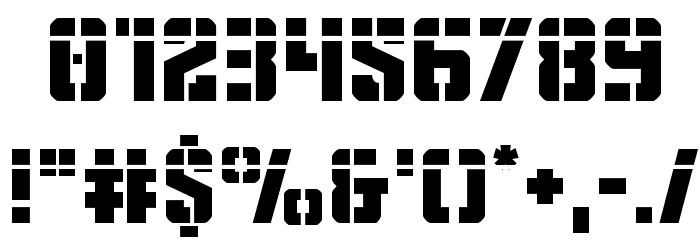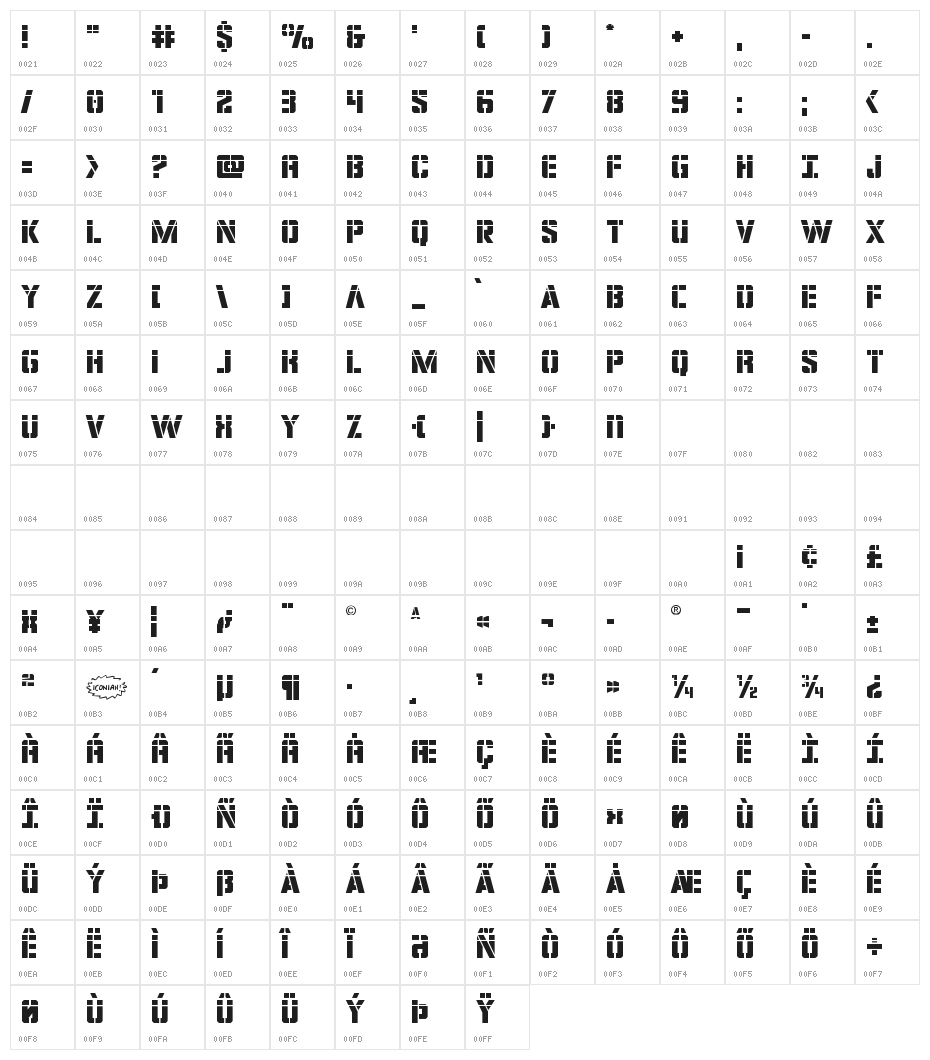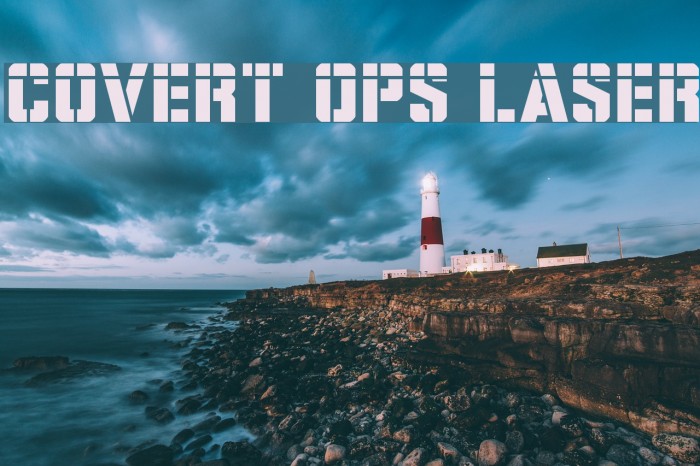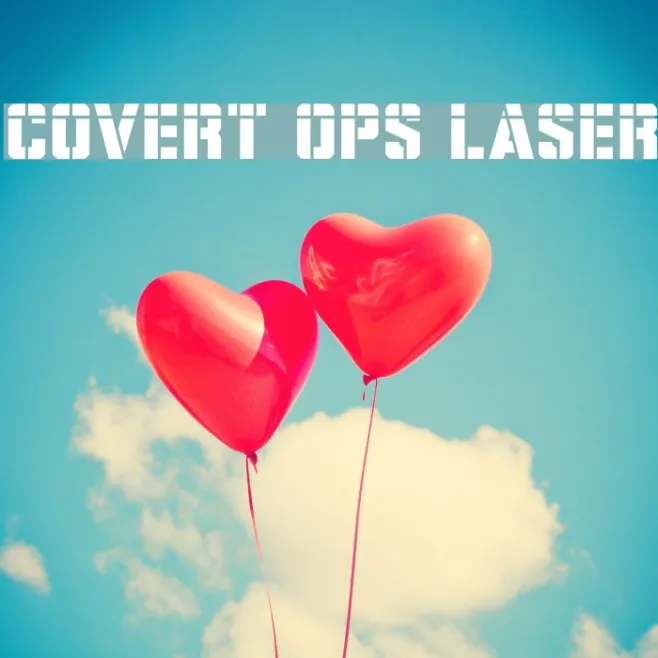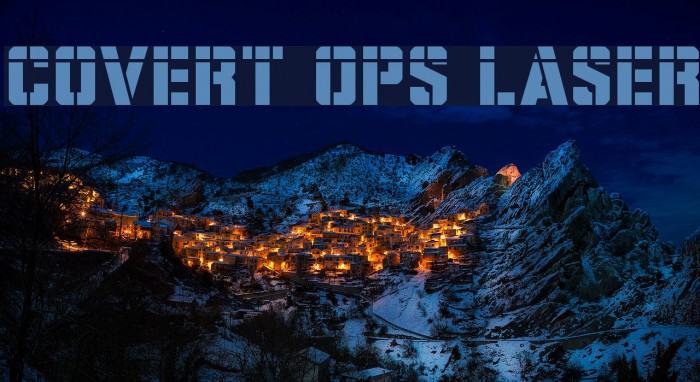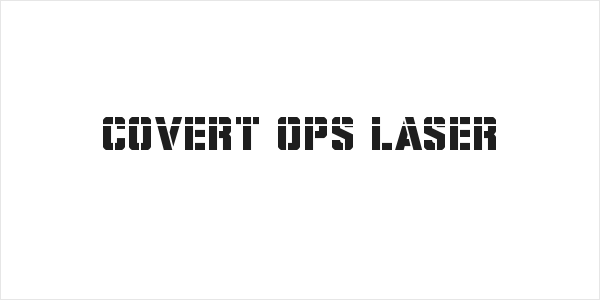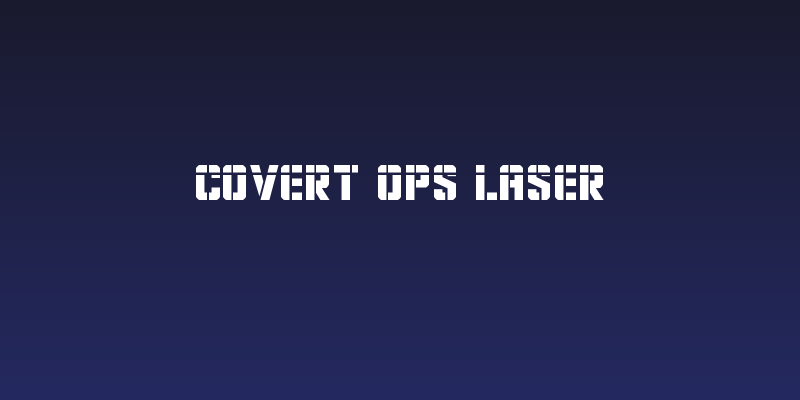
Covert Ops Laser Font
Covert Ops Laser Description
This font features a bold, stencil-like design with sharp, angular edges and a distinctly modern, industrial feel. The characters are constructed with solid, blocky forms interrupted by strategic gaps, reminiscent of military or tactical aesthetics. The uppercase and lowercase letters maintain a consistent style, with a strong emphasis on geometric shapes. The numerals and special characters follow the same design principles, ensuring uniformity across all glyphs. This font is ideal for projects that require a strong, assertive presence, such as branding for tech companies, military-themed designs, or urban streetwear labels.
| Use Case | Logos, Headlines, Signage |
| Proposed Projects | Ideal for military-themed branding, tech company logos, urban streetwear designs, and signage. |